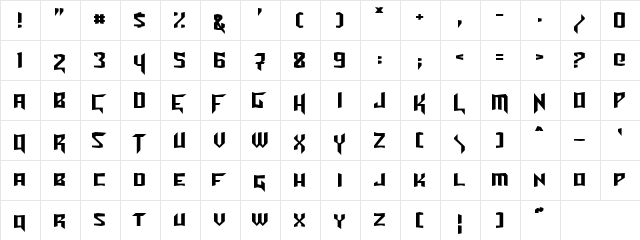
Turok Normal
Design Context for Turok Typeface
Turok is a composed and adaptable typeface that performs quietly and consistently across a wide range of design contexts.